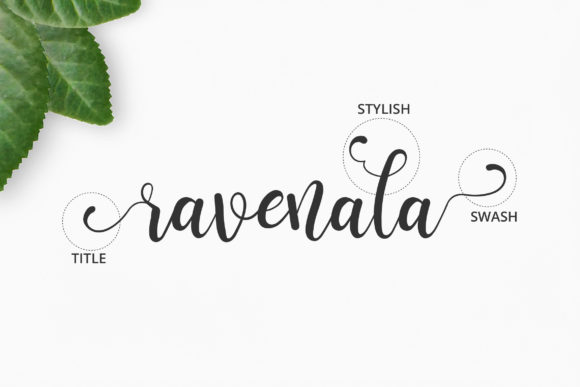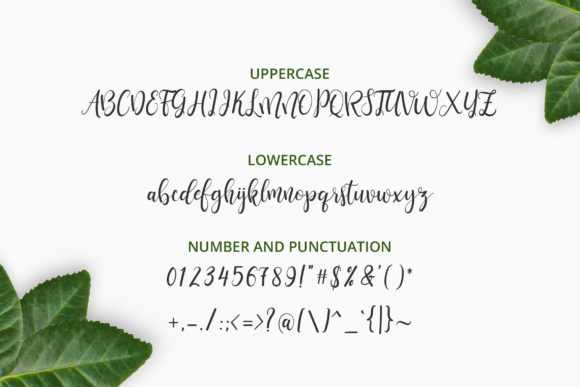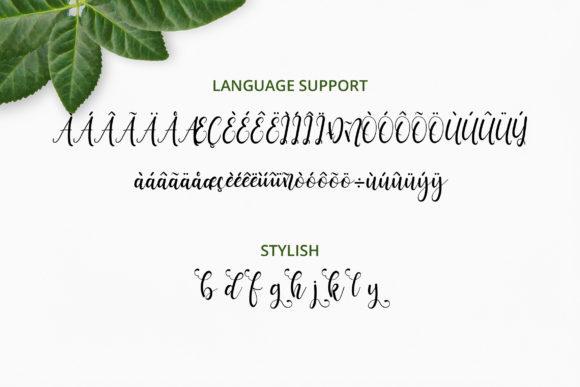
Introduction to Ravenala Font
Ravenala is a playful and cute script that radiates authenticity.
It features gorgeously light letters and swashes that feel both elegant and authentic This font is PUA encoded which means you can access all of the magical glyphs and swashes with ease.
Key Features of Ravenala Font